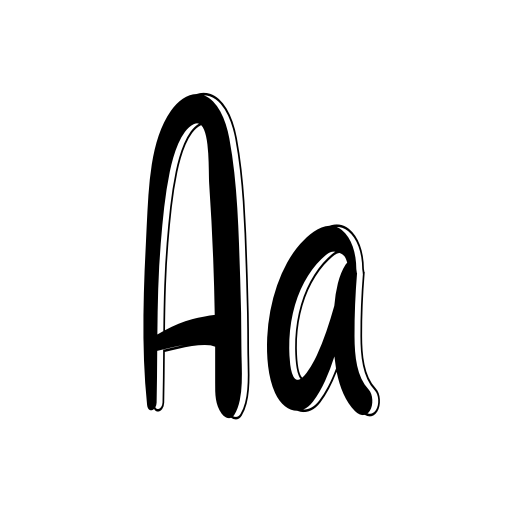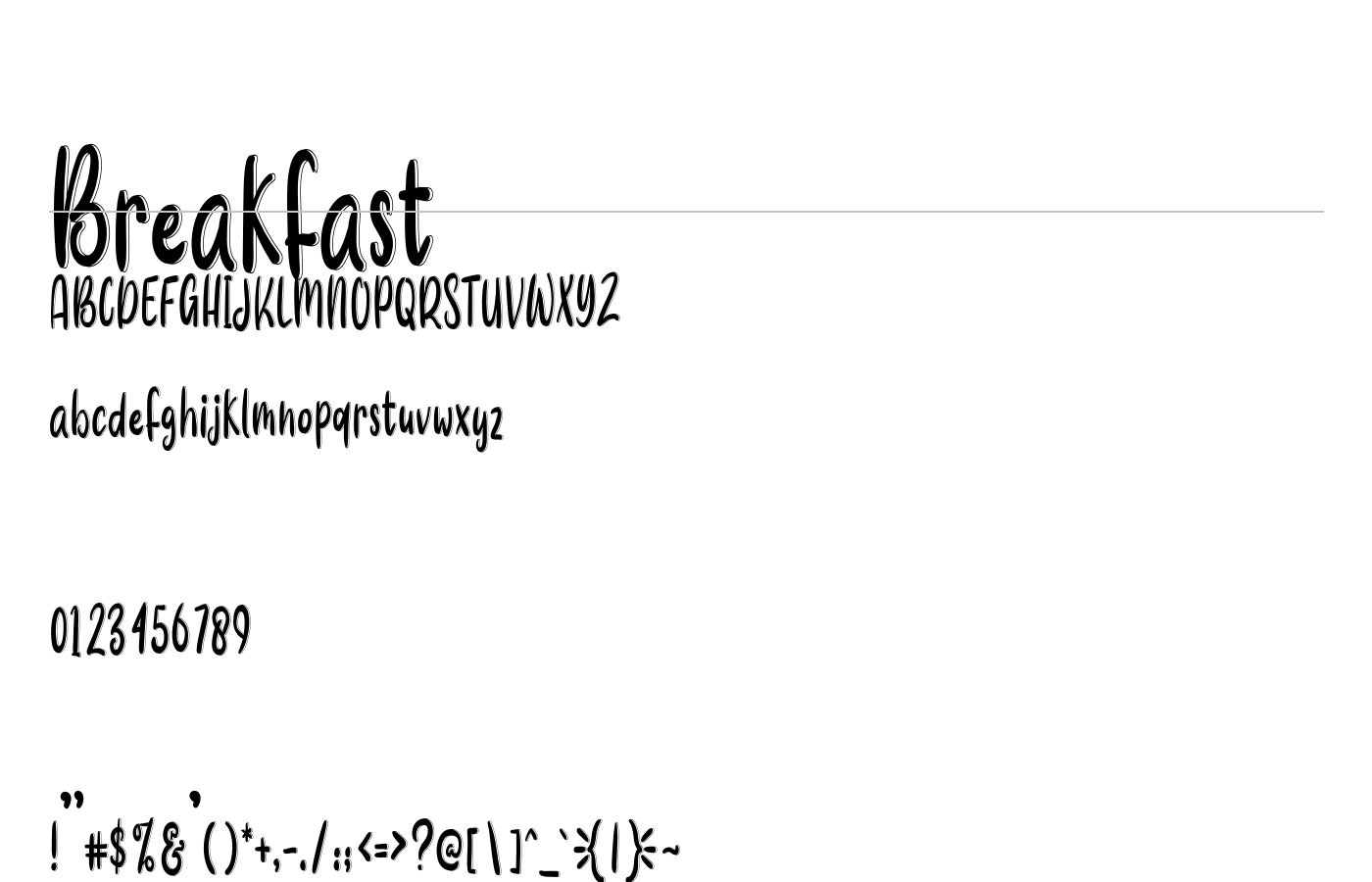
Breakfast Font is a playful, narrow handwritten typeface characterized by its tall, slender letterforms and smooth, rounded strokes. Its casual, friendly vibe makes it ideal for creative projects, branding, and packaging seeking a personal, approachable touch. This font works best in headlines or short text where its unique personality can shine without compromising readability.
Breakfast Font
About Breakfast Font